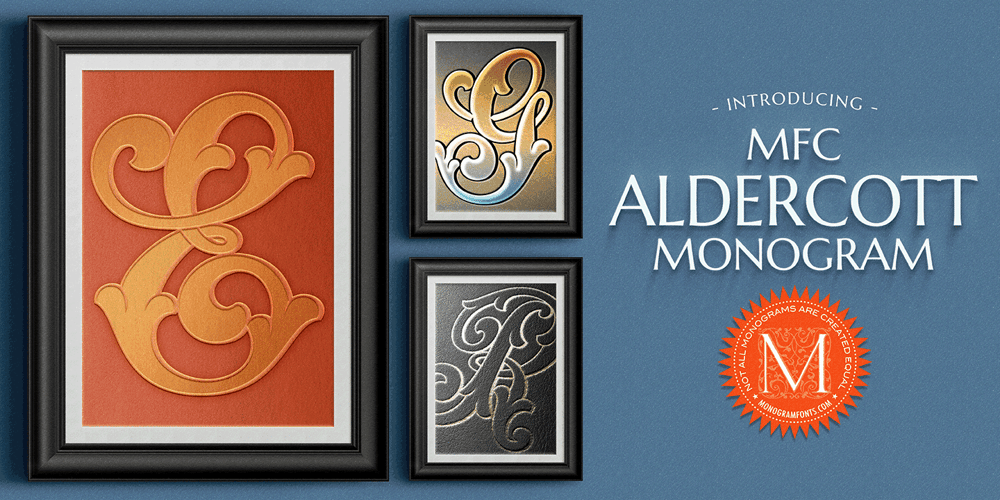
MFC Aldercott Monogram Font Family was designed by Jim Lyles, Brian J. Bonislawsky and published by Monogram Fonts Co.. MFC Aldercott Monogram contains 4 styles and family package options. The source of inspiration for Aldercott Monogram is a decorative alphabet designed in 1901 by Marcus Goldsmith, an inventor of elegant accessories of personal nature. Originally developed to be used as individual letters or for advertising purposes, this elegant lettering style is now digitally remastered and updated with smallcaps for modern monogram typesetting use for additional functionality beyond its original intentions. Download and view the MFC Aldercott Monogram Guidebook if you would like to learn a little more.